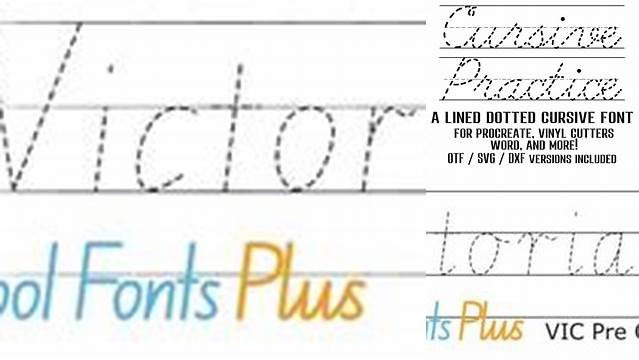
Download VIC Cursive Dotted Font: Free & Fun!
Hey guys! Are you on the hunt for a super cool, free cursive font, especially one that's dotted to make tracing a breeze? Well, you're in luck! Today, we're diving deep into the world of the VIC Cursive Dotted Font. This font is a fantastic resource for anyone wanting to learn or teach cursive handwriting, create engaging worksheets, or just add a touch of elegance to their projects. This article is your one-stop guide to everything you need to know about downloading and using the VIC Cursive Dotted Font for free. We'll cover where to find it, how to install it, and some awesome ways you can use it. Get ready to amp up your creativity and handwriting skills – let's get started!
1. Understanding the Allure of VIC Cursive Dotted Font
So, what's the big deal about the VIC Cursive Dotted Font, you ask? Well, it's more than just a font; it's a tool! The dotted lines are specifically designed to guide the user in forming beautiful, flowing cursive letters. This is especially helpful for kids, beginners, or anyone looking to improve their handwriting. The dotted format allows you to trace the letters, which helps with muscle memory and letter formation. The VIC Cursive Dotted Font is not only functional but also aesthetically pleasing. It mimics the look of traditional cursive handwriting, making it perfect for creating authentic-looking documents, invitations, or educational materials. Many people find the style of the font visually appealing, adding a personal and elegant touch to any project. Using a dotted font also makes the learning process more interactive and fun, especially for children who are often learning the basics of handwriting. The visual guide provided by the dots removes the initial intimidation that can often come with learning to write cursive from scratch. Moreover, the ease of access through free downloads makes this font a valuable resource for teachers, parents, and anyone looking to enhance their creative projects without breaking the bank. The simplicity and user-friendly nature of the VIC Cursive Dotted Font make it a great choice, whether you're a seasoned designer or a complete beginner. The dots encourage students to focus on the shape and flow of each letter, leading to a faster and more effective learning experience. It also fosters a sense of accomplishment as users see their handwriting improve with practice, boosting their confidence. The versatility of the VIC Cursive Dotted Font makes it a worthwhile addition to your design library, helping you create visually appealing content with ease. Because it's free, it’s also an excellent option for educational purposes, allowing teachers and parents to create materials without the financial constraints often associated with resources. Overall, it's a user-friendly and effective tool for improving and enjoying handwriting.